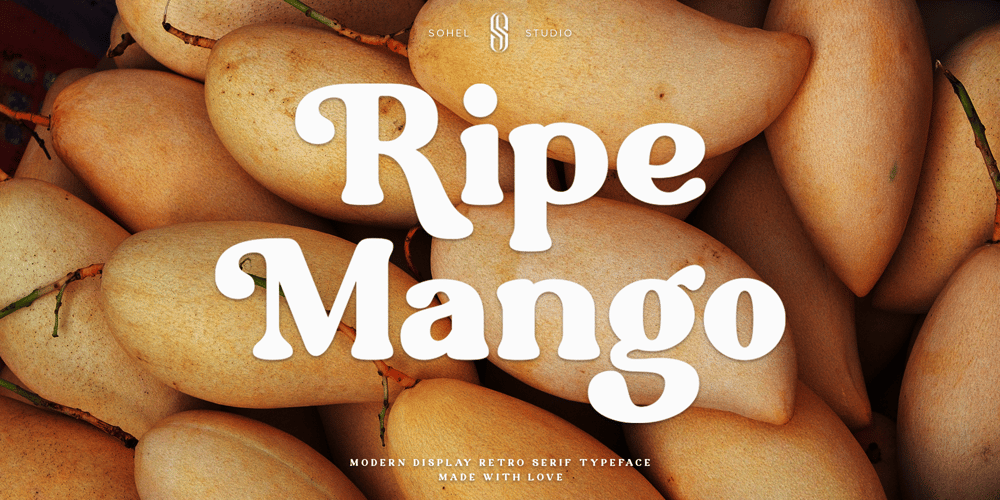
Ripe Mango Font Family was designed by Akhmad Husain Rifa’i and published by Sohel Studio. Ripe Mango contains 4 styles and family package options. Ripe Mango is a retro display serif font that exudes a classic charm and bold character.With its design inspired by retro styles, this font brings an elegant touch and evokes a sense of the past.Each letter is meticulously crafted with careful attention to detail and proportion, resulting in a visually appealing and unique appearance.Ripe Mango is perfect for projects that require a vintage feel, such as posters, logos, packaging, and promotional materials that aim to capture a nostalgic and sophisticated atmosphere.This font will add a special touch to your designs and captivate viewers with its retro allure and distinctiveness.Ripe Mango Features:- 4 Weight (Regular, Slant, Semi Bold, Outline)- Uppercase And Lowercase- Alternates And Ligature- Numerals & Punctuation- Accented characters- Multilingual Support- Unicode PUA EncodedWhile using this product, if you encounter any problem or spot something we may have missed, please don’t hesitate to drop us a message.We’d love to hear your feedbacks in order to further fine-tune our products. Thanks and have a wonderful day .